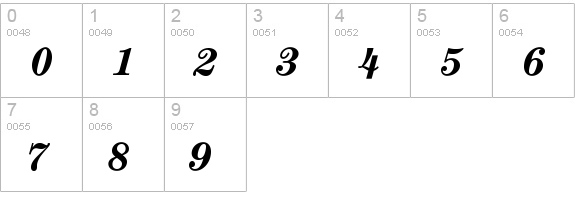
CenturyEF-BoldItalic is a sleek and modern typeface that exudes sophistication and elegance. Its bold and italic design adds a touch of flair to any text, making it a versatile choice for various design projects. The strong, yet graceful curves of this font make it perfect for headlines, branding, and editorial projects. What sets CenturyEF-BoldItalic apart is that it is available for free download at FontsMarket.com. This means that you can easily access and use this beautiful font without any cost, making it a valuable addition to your design toolkit. Whether you're working on a professional project or a personal creative endeavor, CenturyEF-BoldItalic offers a stylish and contemporary look that will elevate your designs to the next level.